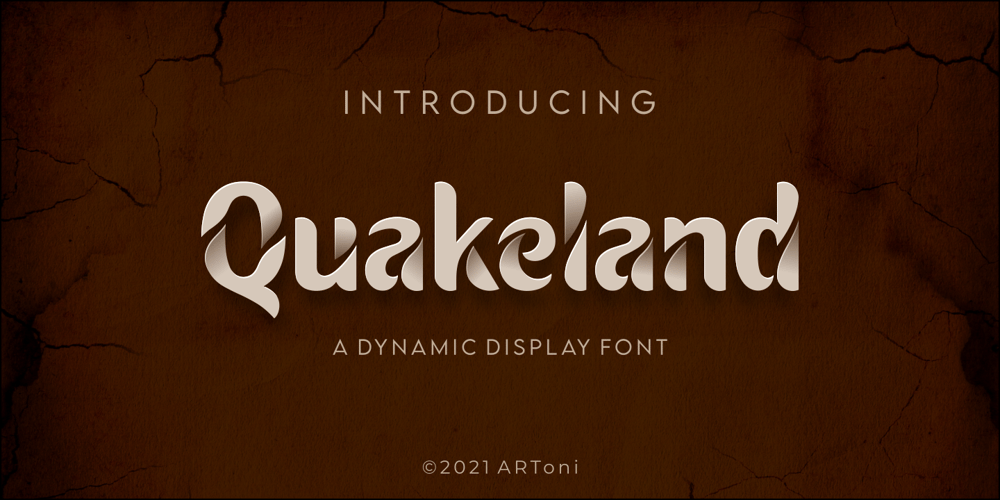
Quakeland Font Family was designed by Anthonie Van Hayu and published by ARToni. Quakeland contains 1 styles and family package options. Quakeland is a cool, modern and stylish display font. Add this trendy font to your web designs, logos or pretty much anything that requires a smart, cool touch.